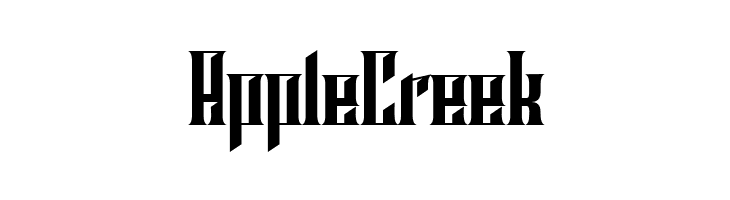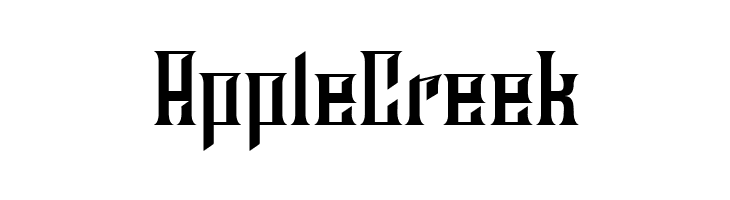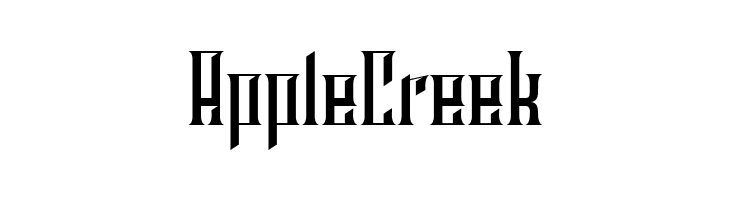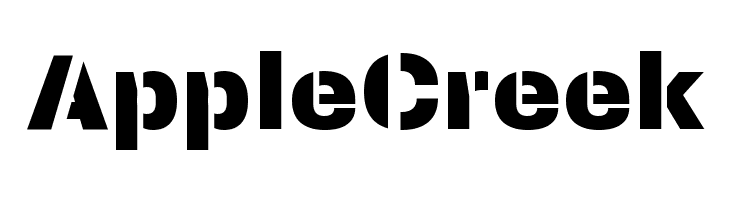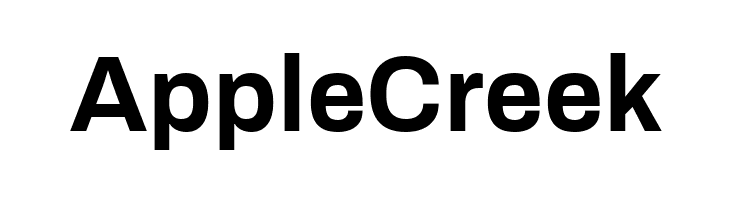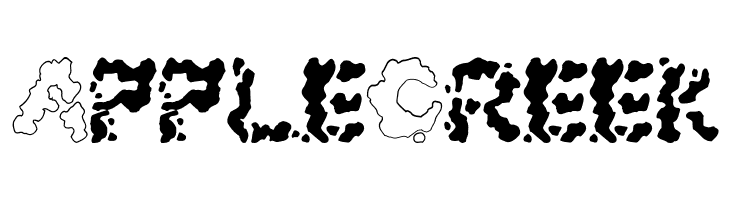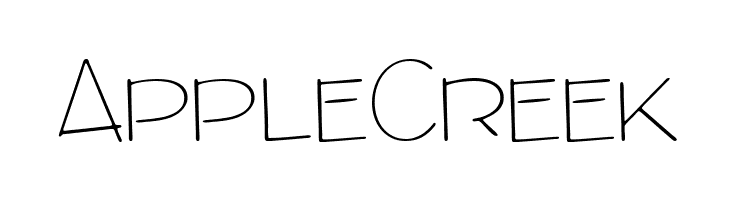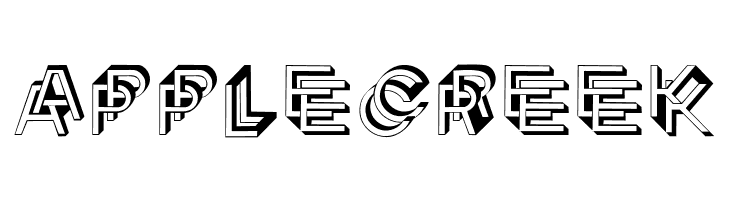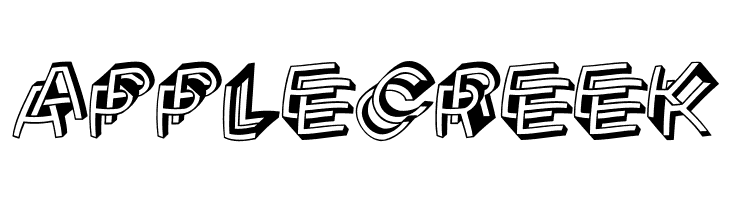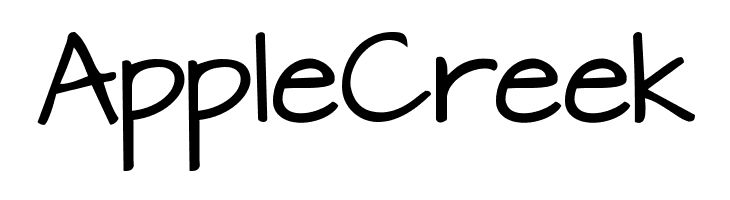
A bold, organic font with island-like contours and high contrast.
A bold, condensed font with high contrast and geometric design, perfect for impactful visuals.
A bold, blackletter-style font with sharp angles and dramatic serifs.
A bold, angular font with a modern, geometric style.
A bold, condensed font with sharp angles and geometric forms.
A bold, sketch-like font with a hand-drawn, artistic style.
A hand-drawn serif font with a sketch-like, textured appearance.
A casual, handwritten-style font with a natural, flowing appearance.
A playful, handwritten-style font with rounded, informal characters.
A casual, handwritten font with a playful and approachable style.
A playful, hand-drawn style font with bold, rounded characters.
A hand-drawn, architectural-style font with consistent stroke width and artistic flair.
A geometric, technical font with clean lines and sharp angles, ideal for architectural and technical designs.
A clean, geometric font with a technical and modern style.
A bold, handwritten-style font with a modern, architectural aesthetic.
A handwritten font with clean, elongated lines reminiscent of architectural sketches.
A bold, three-dimensional font with architectural and geometric influences.
A bold, 3D font with a playful, retro comic book style.
A bold, geometric font with strong, consistent letterforms.
A bold, impactful typeface with thick strokes and strong presence.
A bold, geometric font with high contrast and a modern style.
A bold, sans-serif font with a strong, modern presence.
A bold, modern sans-serif font with a strong, impactful presence.
A bold, modern typeface with strong, clear characters and consistent stroke width.
A bold, modern sans-serif font with clean lines and strong readability.
A modern, bold, and italicized typeface with a clean and dynamic style.
A modern, italicized sans-serif font with clean lines and consistent stroke width.
A modern, clean typeface with excellent readability and balanced proportions.
A modern, italic sans-serif font with medium weight and balanced proportions.
A modern, bold, narrow sans-serif font with clean lines and excellent legibility.
A bold, narrow sans-serif typeface with a modern and clean design.
A modern, narrow, bold italic font with a sleek and professional appearance.
A modern, narrow, bold italic font with tight spacing and minimal contrast.
A sleek, narrow italic font with a modern and elegant style.